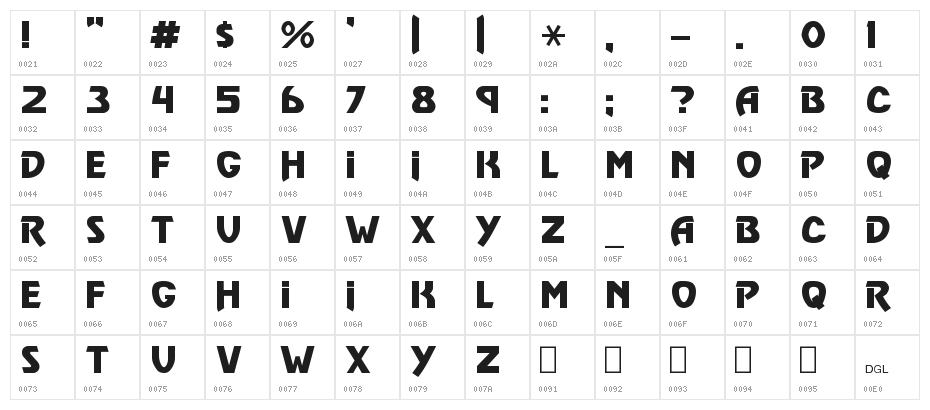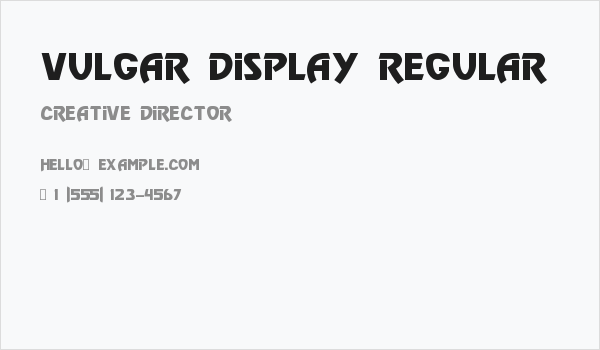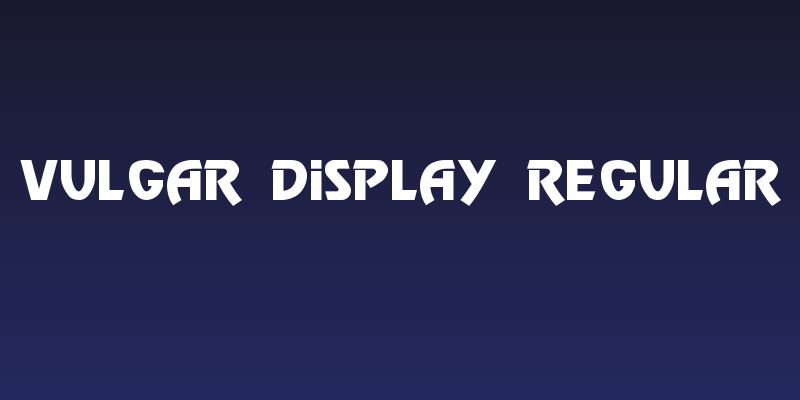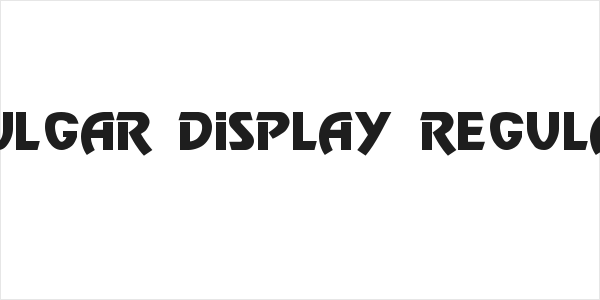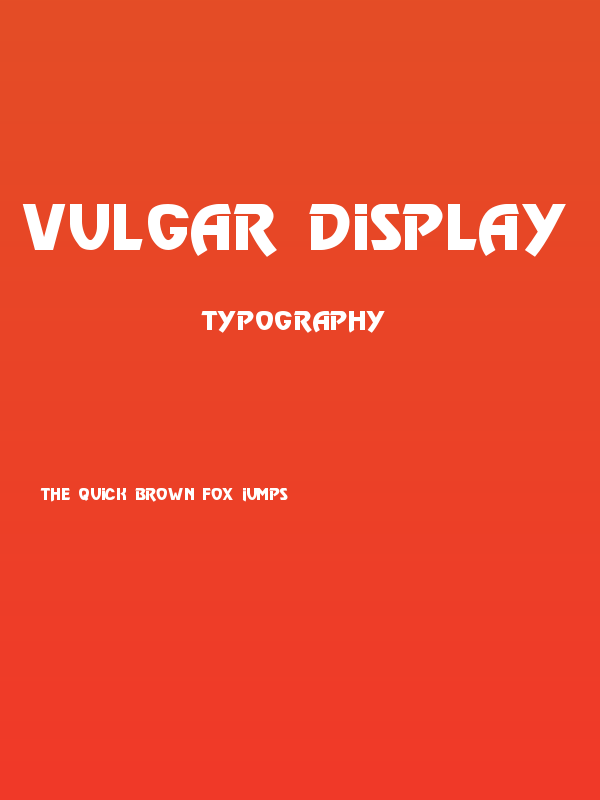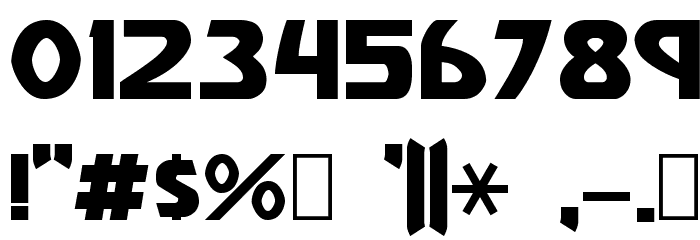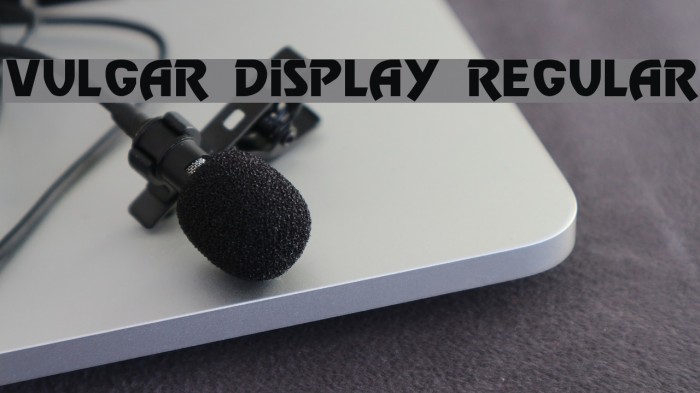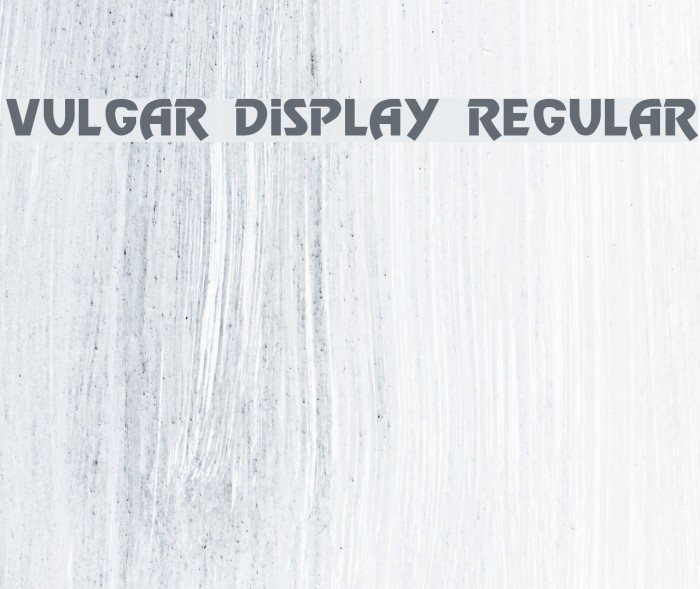
Vulgar Display Regular Font
Vulgar Display Regular Description
This font features a bold and assertive style with angular, geometric shapes that create a strong visual impact. The uppercase letters are particularly striking, with sharp edges and a slightly condensed appearance. The lowercase letters maintain the same boldness, ensuring consistency across text. Numbers are equally robust, with a uniform thickness that enhances readability. Special characters are designed to match the overall aesthetic, adding versatility for various uses. The font's unique style makes it ideal for projects that require a modern and edgy look.
| Proposed Projects | Perfect for branding, posters, headlines, and any project needing a bold, modern touch. |